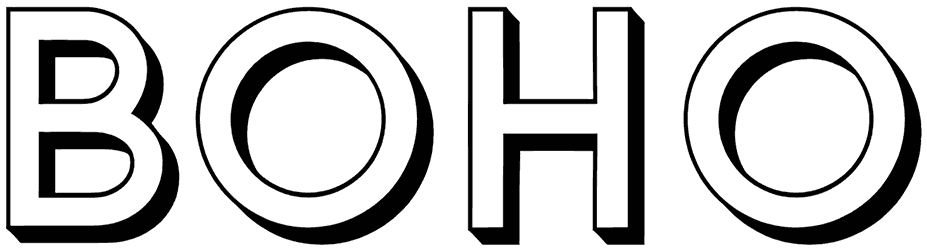
Boho Font
The letters in Boho, an outlined font, are large and have a slight shadow. It’s not complete with lowercase letters, but it works great for titles, banners, and flyers, all the same. Boho has a distinctive style that can…
The letters in Boho, an outlined font, are large and have a slight shadow. It’s not complete with lowercase letters, but it works great for titles, banners, and flyers, all the same. Boho has a distinctive style that can give your design a special touch.